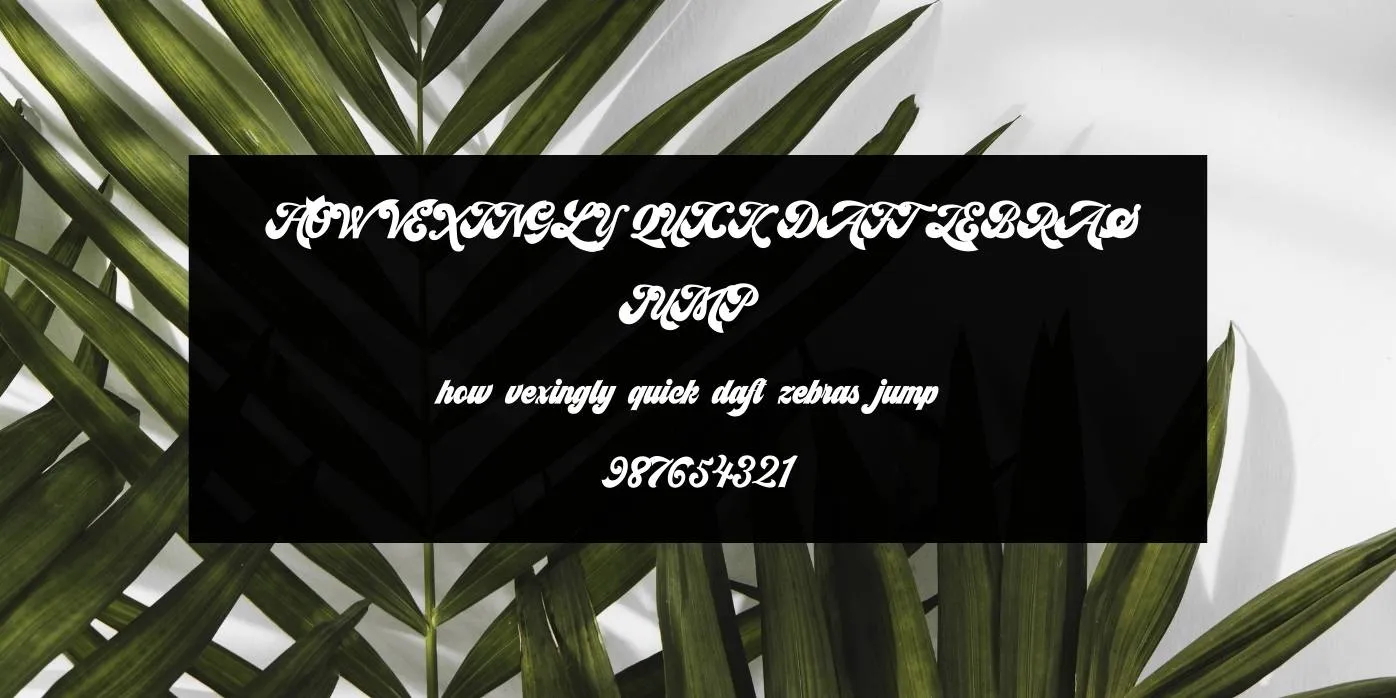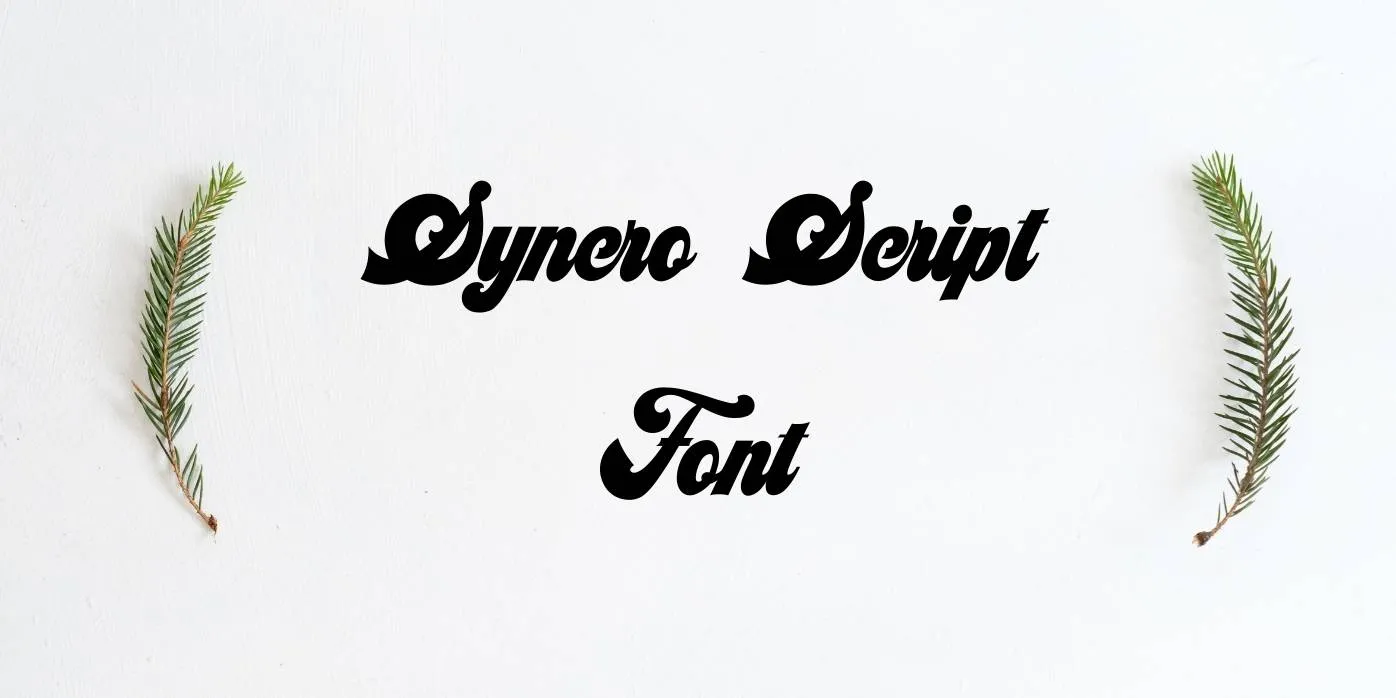
Syncro Script Font
Syncro Script Font is a script font that was created by Cristian Tambalau in 2013. The font is suitable for both text and display purposes. This Font was inspired by the work of Swiss graphic designer Karl Gerstner. Gerstner is known for his use of geometric shapes in his work, and this font takes some of its cues from that style.
The texturing of this typeface is great to work with the pairing of calisto font. The result is a clean and modern-looking font that is perfect for a variety of applications. One of the great things about this Font is that it is very versatile. It can be used for both body copy and headlines, and it works well in both digital and print contexts.
Additionally, the font includes a wide range of characters, including both uppercase and lowercase letters, as well as numbers and symbols. This makes it perfect for use in a variety of languages.